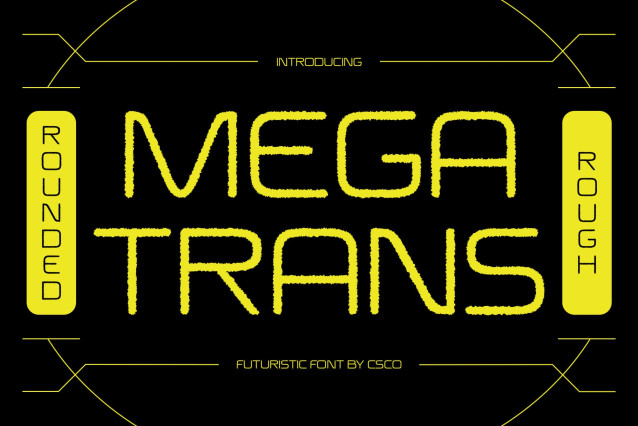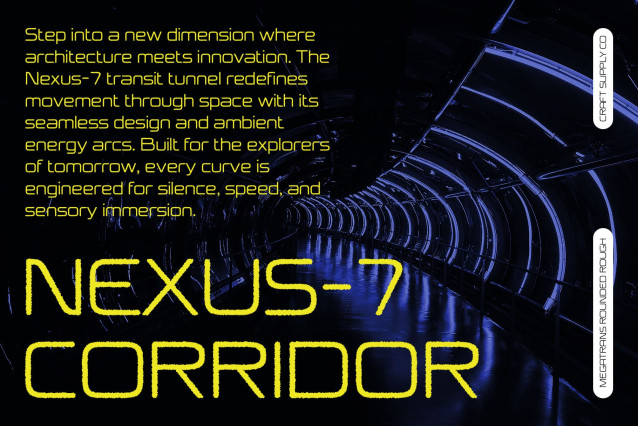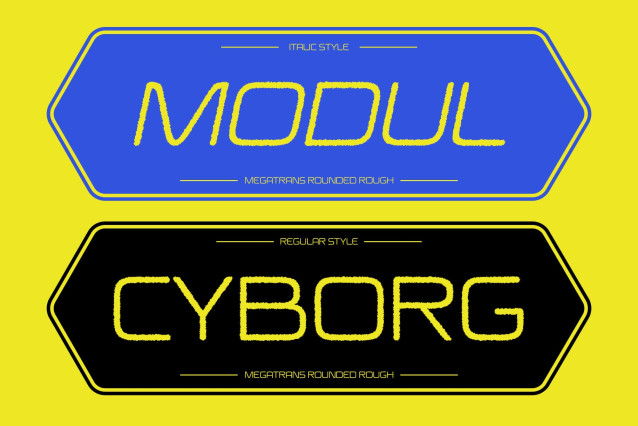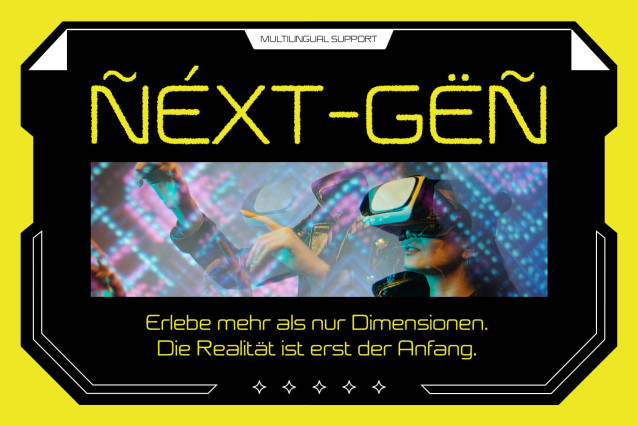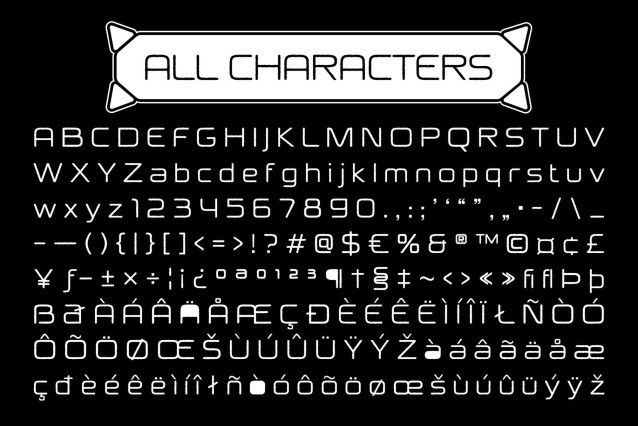
Megatrans Rounded Rough Font
Megatrans Rounded Rough Font is a modern sans serif font that fuses futuristic geometry with rounded forms, creating a sleek yet approachable aesthetic. Its clean lines and structured layout reflect advanced design thinking, while the softened curves introduce warmth and accessibility.